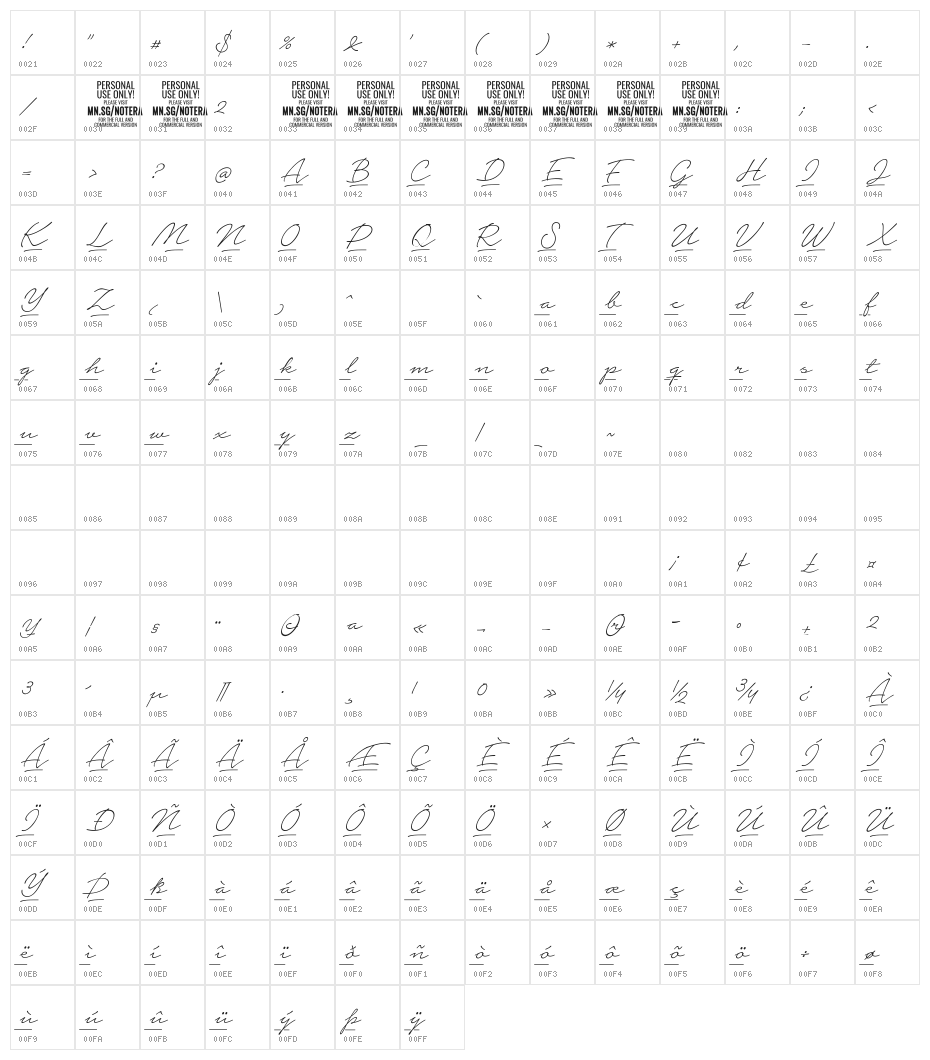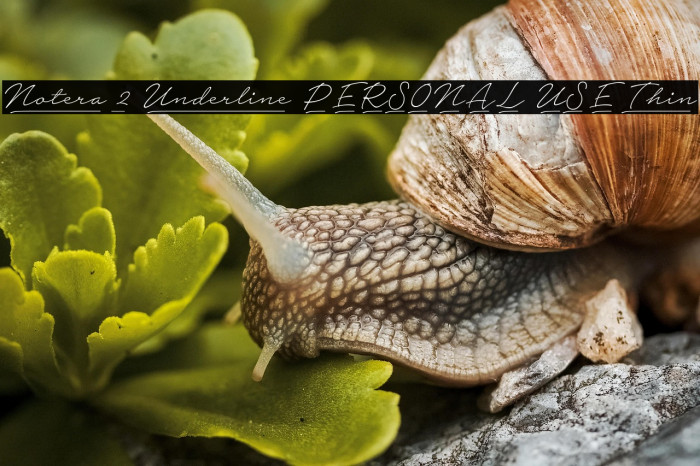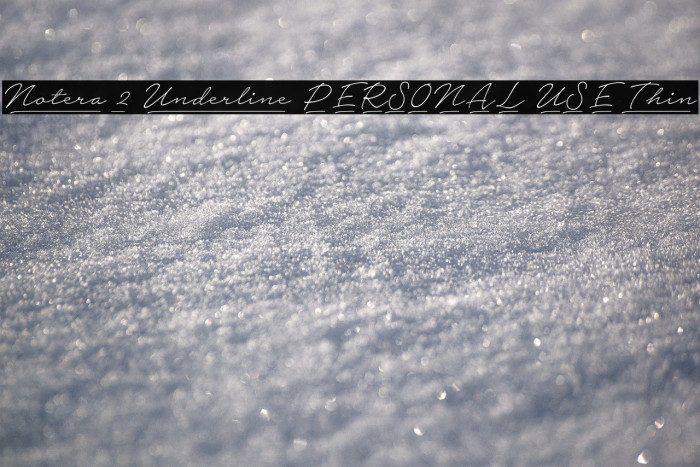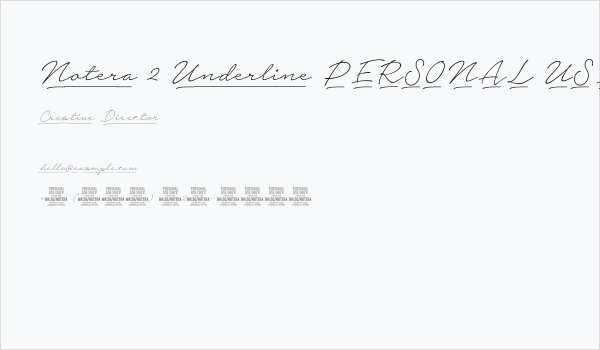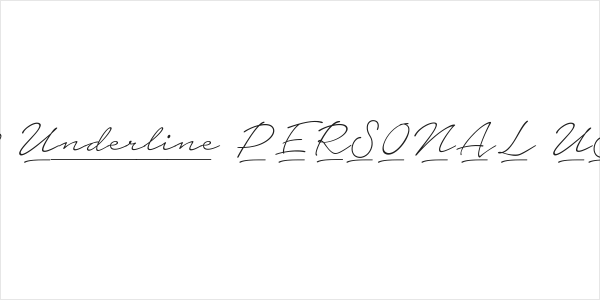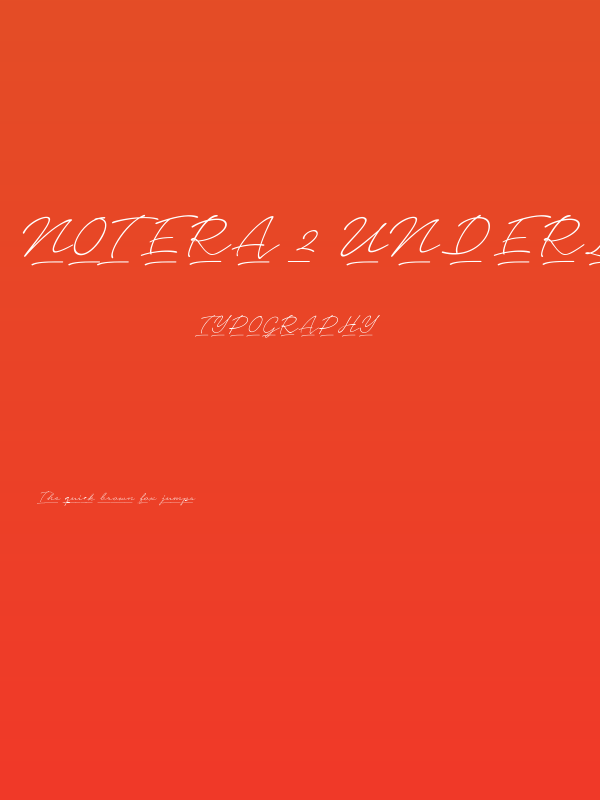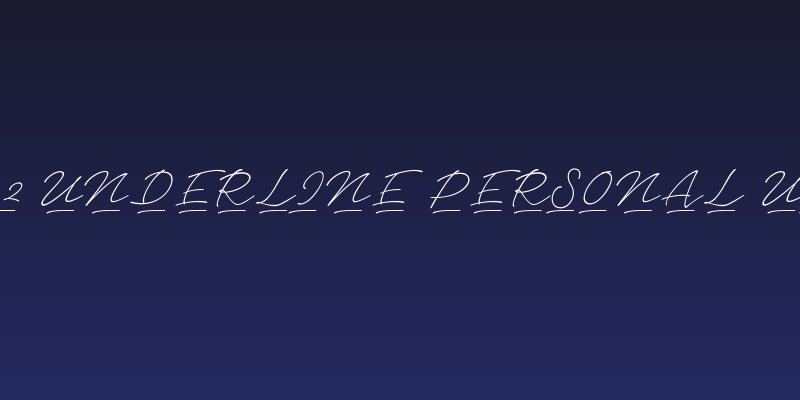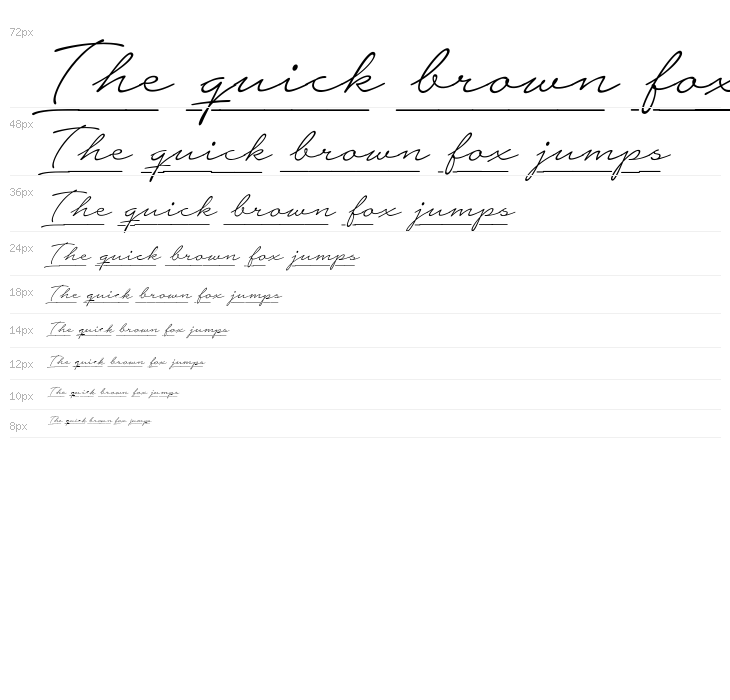
Notera 2 Underline PERSONAL USE Thin Font
Notera 2 Underline PERSONAL USE Thin Description
This elegant script font features a delicate, flowing style with each character seamlessly connected to the next. The letters are underlined, adding a unique and sophisticated touch. The strokes are thin and graceful, giving the font a refined and airy appearance. It maintains a consistent slant, enhancing its cursive nature. The uppercase letters are slightly larger and more pronounced, while the lowercase letters maintain a consistent height, contributing to a harmonious overall look. The special characters are designed to match the font's elegant style, ensuring a cohesive appearance across all text.